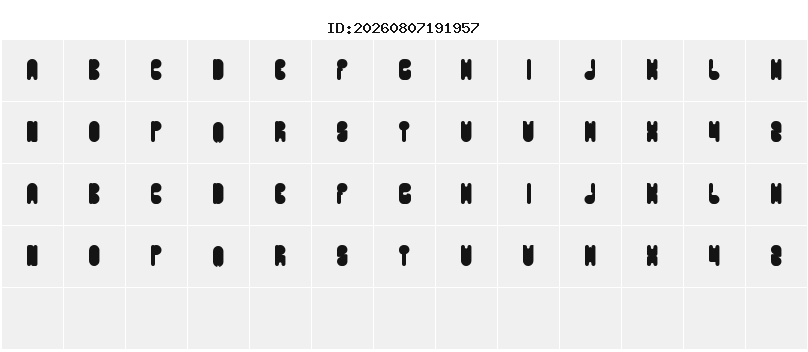
portable Preview
• Font Name: portable
• Full Font Name: portable
About portable.ttf
portable.ttf is a modern, elegant sans-serif font designed for ultimate readability and visual harmony. Perfect for branding, headlines, web design, and print materials.